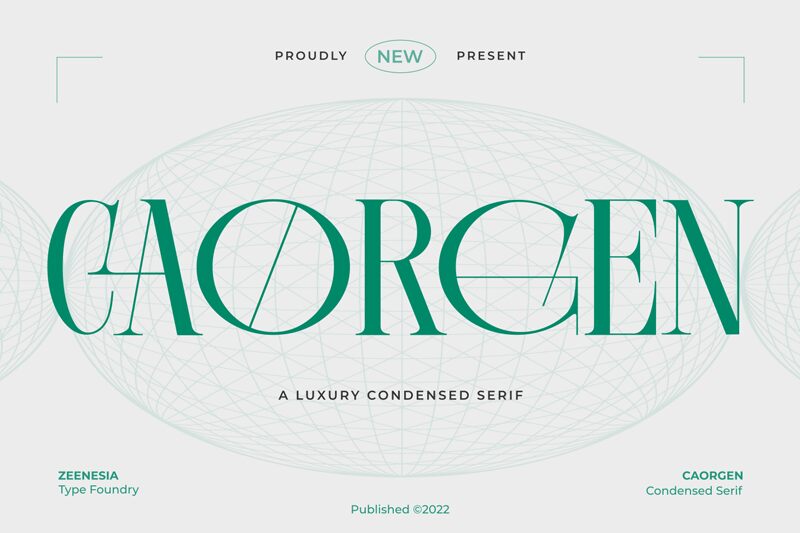
Caorgen font by Zeenesia Studio is an elegant, stylish, sophisticated serif. The condensed font is of a modern classic style that can easily make any project stand out and be more memorable. Despite its contemporary look, the typeface does carry old style elements making it perfect for those looking for something completely fresh yet timeless.
This free sophisticated font will flourish in books, magazines, posters, branding work, and stationery. Publishing projects like newspapers and novels are also possible with Caorgen in place. Clothing lines will usually find this professional-style typeface fitting for use inside advertising campaigns or even on clothes themselves.